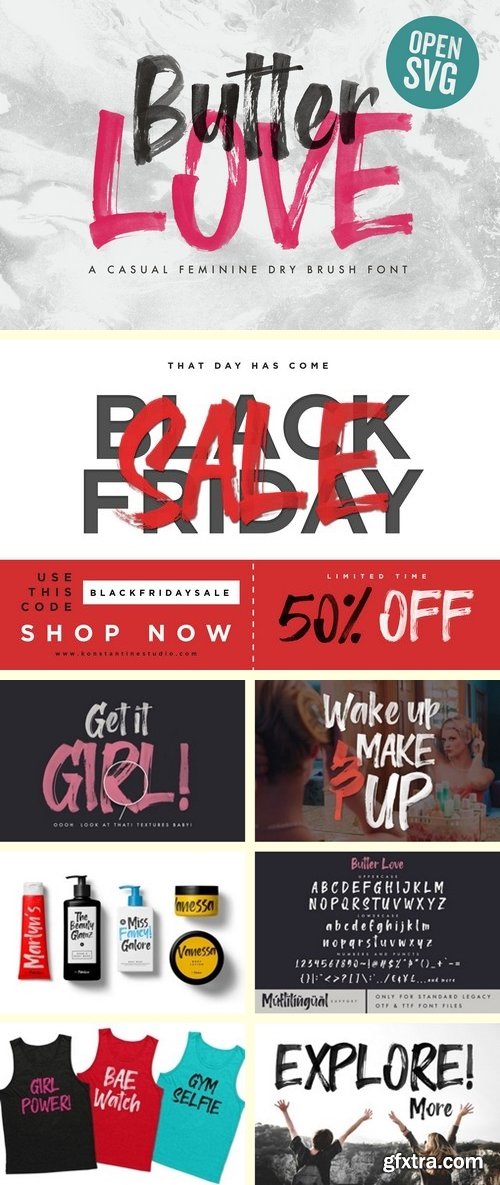
You need an Adobe Photoshop CC 2017 or Adobe Illustrator CC 2018 to access the OpentypeSVG font version. But if you don't, you can still access the standard OTF/TTF version of it, with multilingual support. The Opentype SVG fonts has gone viral in the market nowadays, so let us grab some attentions of it. Introducing Butter Love, A water inked dry brush font using the latest technique called OPENTYPE SVG font. Which is including the ink and stroke texture in the font so the authenticity is just too real makes people didn't notice if its just a font. boom! Video of how to use the Opentype SVG font included, check out more above.